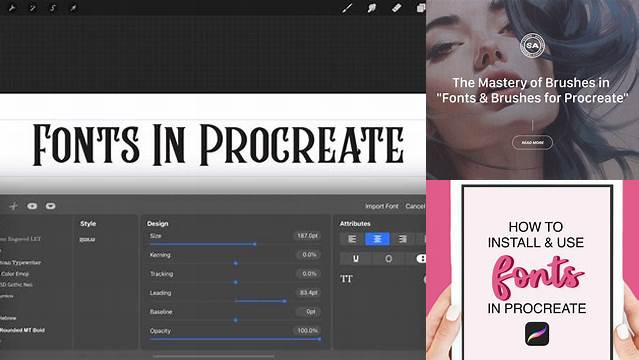
Procreate Font Mastery: Your Guide To Custom Typography
Hey everyone! Ready to dive into the awesome world of creating your own fonts in Procreate? Forget those generic font options; we're talking about crafting unique, personalized typography that screams you. This guide is your friendly, step-by-step companion, walking you through everything from the basics to some seriously cool advanced techniques. So grab your Apple Pencil, fire up Procreate, and let's get started! We'll break down how to draw fonts in Procreate in a way that's easy to understand and super fun.
1. Setting Up Your Canvas for Font Design
Alright, guys, before we start sketching, let’s set up our canvas. This is super important because it ensures your fonts look crisp and professional. First off, create a new canvas in Procreate. I usually go for a square canvas, like 2000 x 2000 pixels or even larger, especially if you plan on selling your fonts later. This gives you plenty of room to work and allows for sharp, high-quality results. Next, choose a DPI (dots per inch) of 300. This is the standard for print and ensures your font looks amazing, even if you decide to use it for physical projects. When choosing your canvas, consider how you'll be using the font. If it's mainly for digital use, a smaller canvas size might suffice, but if you intend to print your font, a larger size is definitely the way to go. Consider creating a grid or guide to help with consistent letterforms. This could be a basic grid for letter height and baseline, and you can even add guidelines for x-height and ascenders/descenders to keep your letters proportional. Remember, consistency is key when drawing fonts. Make sure your canvas is perfectly aligned, your layers are well-organized, and your layers are named for easy navigation. A clean, well-organized canvas leads to a much more pleasant and efficient workflow, and it will help you in the long run. Now, let's move on to the next step of how to draw fonts in procreate.
1.1 Choosing the Right Canvas Size and DPI
Let's talk specifics about canvas size and DPI. I usually start with a canvas that's 2000x2000 pixels at 300 DPI. This provides ample space for detailed work, whether you're crafting individual glyphs or designing an entire typeface. The higher DPI ensures sharp lines and prevents pixelation, especially when scaling your font. Remember, the size you choose can depend on the final application of your font. For instance, if it's intended for web use, a smaller canvas might be fine. However, if you plan to use it for print, then a larger canvas is absolutely essential. Create a few different canvas sizes to experiment and find out what works best for you. Start by drawing a few letters on different canvas sizes and see which one you prefer. Consider that the canvas size will also affect the size of your final font file. A larger canvas size will typically produce a larger file size, which can affect performance. Always keep your intended usage in mind when selecting the canvas size and DPI. Furthermore, a larger canvas helps to maintain the integrity of your font design when scaling the font up or down later. This flexibility is crucial for creating fonts that can be used across a variety of platforms and sizes. Consider the visual balance and the readability of your font as well. A well-designed font will have a consistent size and proportion for all letters. In summary, the correct canvas size and DPI will ensure that the font looks visually appealing and that you understand how to draw fonts in procreate.
1.2 Setting Up Guides and Grids for Font Consistency
Guides and grids are your best friends when it comes to font design. They help maintain consistency in letter heights, widths, and overall proportions. Think of them as your digital rulers! Start by enabling the drawing guide in Procreate. You can find this under the Actions panel (the wrench icon) and then select 'Canvas'. From there, tap 'Drawing Guide' and choose 'Edit Drawing Guide'. Experiment with different guide types, like 'Grid', 'Isometric', or 'Perspective'. The 'Grid' is usually the most helpful for basic font design. Once your guide is enabled, adjust the grid size so that it fits your canvas. I generally set up a grid where the horizontal lines indicate the baseline (where your letters sit), the x-height (the height of lowercase letters), the cap height (the height of uppercase letters), and the ascender/descender lines (for letters like 'h' and 'p'). Remember to use the grid to keep everything aligned! The grid serves as a structural skeleton, ensuring your letters have a uniform and visually pleasing appearance. Think about these guides as the backbone of your font. The more precise you are with these guides, the more professional your final font will look. These tools make the process of how to draw fonts in procreate much easier. Utilize the benefits of using guides and grids to ensure consistency.
2. Mastering the Procreate Interface for Font Design
Alright, let's get familiar with the Procreate interface, because knowing your way around is essential for a smooth design process. If you're new to Procreate, don't worry; it's pretty intuitive. The toolbar is on the left; it contains your brush selector, eraser, smudge tool, and layers panel. The top bar has your actions (wrench icon) where you can find the canvas settings, the adjustment panel (magic wand), the selection tool (S), and the transform tool (arrow). Pay close attention to the layers panel! This is where you'll manage all your letterforms. I recommend creating a new layer for each letter or glyph. This keeps things organized and allows you to easily edit individual elements. Using the transformation tool (the arrow icon), you can rotate, scale, and warp your letters. The adjustment panel is also where you can add effects such as blur or color adjustments to your fonts. Finally, get familiar with the gesture controls, such as two-finger tap to undo and three-finger tap to redo. With these controls, you can quickly navigate and undo/redo your actions, which is important when you draw fonts in procreate.
2.1 Understanding the Layers Panel and Organization
Guys, the layers panel is your command center. Create a new layer for each letter or glyph. This way, you can edit each letter independently without affecting the others. Naming your layers is crucial, too. Instead of 'Layer 1', 'Layer 2', etc., name them 'A', 'B', 'C', etc. This helps you keep track of everything. If you're designing a complex character, like a lowercase 'g', you might have multiple layers for different parts (the bowl, the tail, etc.). You can merge these layers later, but initially, breaking things down into smaller parts makes editing much easier. Get into the habit of organizing your layers from the start. As you progress, you can group related layers together. This is helpful for maintaining your overall project. When you're finished with a font, you can merge layers to reduce the file size. Remember, proper organization saves you a ton of time and frustration. The layers panel is a key part of the answer to how to draw fonts in procreate.
2.2 Utilizing Procreate's Brushes and Tools for Font Creation
Procreate offers a fantastic array of brushes. Experiment with different brushes to find the ones that best suit your font style. Some brushes are designed for calligraphy, while others are better for clean, sans-serif designs. You can also import custom brushes if you have a specific style in mind. When selecting a brush, pay attention to its settings: size, opacity, and flow. The brush size affects the thickness of your lines. Opacity determines how transparent the line is, and flow controls the density of the color. Experiment with these settings to achieve the desired effect. Utilize the StreamLine feature in the brush settings. This feature smooths out your strokes, which is helpful for creating clean, even lines, especially if you are not as skilled at freehand drawing. Another useful tool is the 'QuickShape' feature, which helps you to create perfect shapes. Create a simple shape and then hold your Apple Pencil on the screen to make it even, giving you clean, crisp letterforms. When you learn to utilize all these tools, you'll quickly understand how to draw fonts in procreate.
3. Sketching and Outlining Your Font Characters
Let's start drawing! Begin with pencil sketches to plan out your letters. Don't worry about perfection at this stage. Focus on the overall shape and feel of your characters. I recommend starting with the basics: uppercase and lowercase A-Z and then numbers. Once you're happy with your sketches, create a new layer and outline each letter with a clean brush. Use a brush that gives you consistent line weight. This could be a technical pen or a customized brush. When outlining, aim for smooth, clean lines. If you're not happy with a line, don't be afraid to undo and try again. Once you have a solid outline, you can fill in the letters with color. When outlining, pay close attention to the details. Make sure all your lines connect and that there are no gaps. This will ensure a professional look. After you've created your outlines, consider adding serifs or other design elements to your fonts. With practice, you'll develop your own design flow, which will help you in understanding how to draw fonts in procreate.
3.1 Planning Your Font: Uppercase, Lowercase, and Numbers
Before you put pen to canvas, plan your font. Start by sketching out all uppercase and lowercase letters, plus numbers. This will help you visualize the overall design and identify any potential issues or inconsistencies. Start with the basics. Look at existing fonts for inspiration. What design elements do you want to incorporate into your font? Consider the overall style. Will it be a serif, sans-serif, or a more decorative font? The style will determine the shapes and details of your characters. Create a mood board or gather inspiration. Once you have a good grasp of the style, start sketching out the letters on your canvas. Start with the most basic shapes. After the basic shapes, you can work on the more complex characters. Once you have completed your sketch, create an outline and fill each letter with color. Before you continue, review all the letters and ensure consistency. The planning stage is crucial for success when you draw fonts in procreate.
7.2 Utilizing OpenType Features for Enhanced Functionality
OpenType features add advanced functionality to your fonts. These are important for adding unique and expressive elements to your fonts. Ligatures connect two or more letters. You can use ligatures to create a more visually appealing design. Alternative glyphs add variety to your characters. You can create multiple variations of the same letter. Stylistic sets allow you to switch between different styles. Create a style for different situations. OpenType features add a lot of flexibility. With this knowledge, you will have a great understanding of how to draw fonts in procreate.